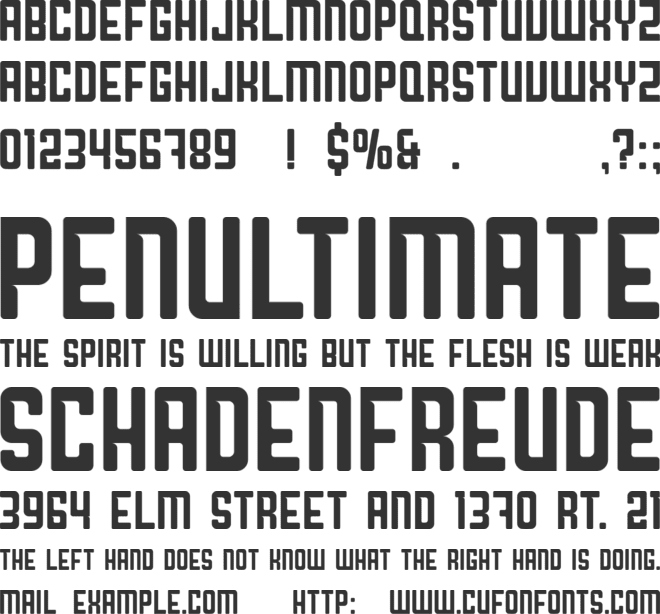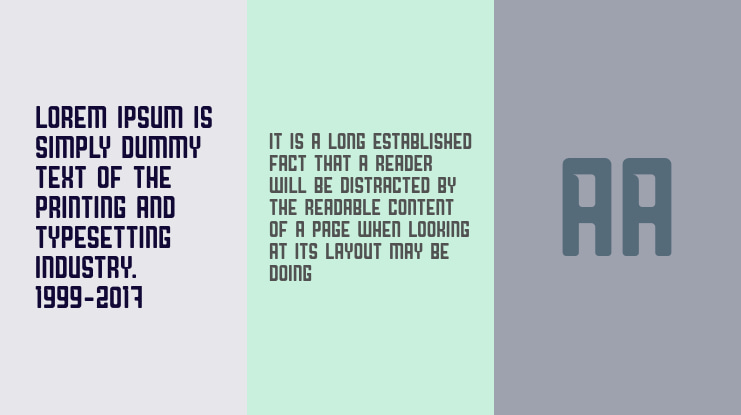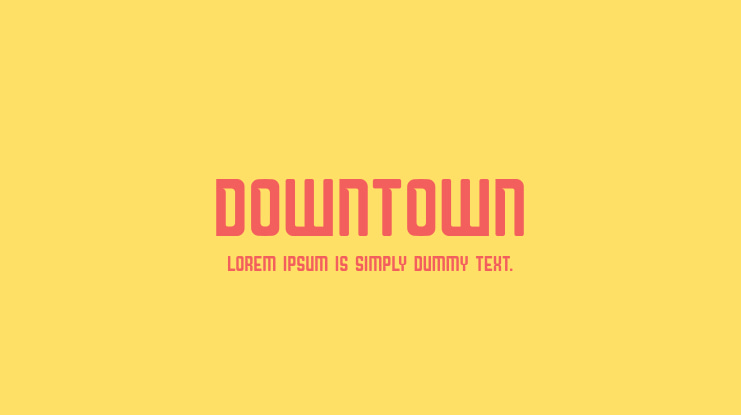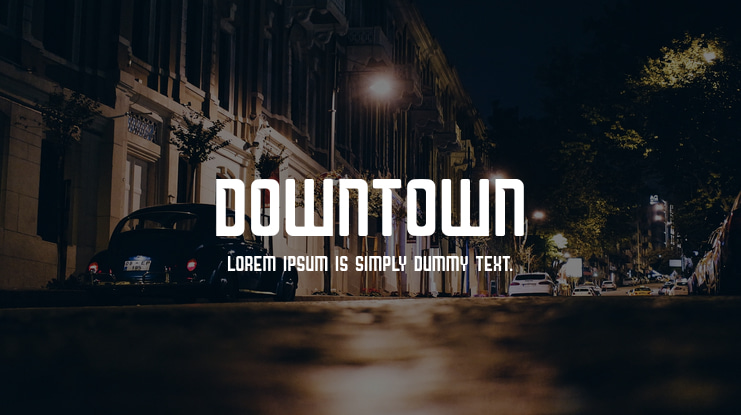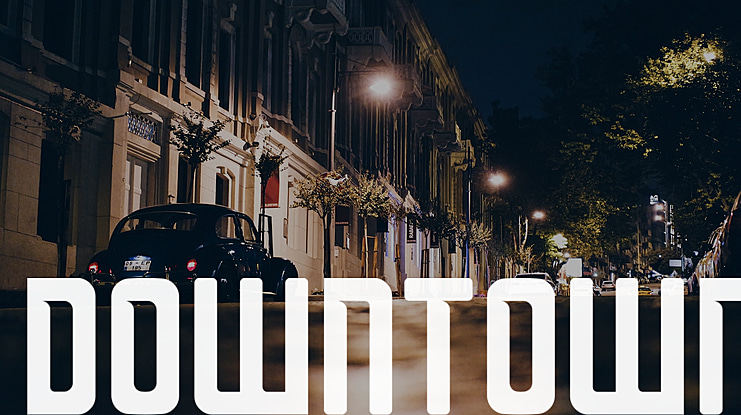
Downtown Font
Downtown font was created by Nelson Fraga and Roman Tunik. Latin version: Nelson Fraga. Cyrillic version: Roman Tunik.
The Downtown Font's a type inspired by the city life and everything that defines a city: it's colors and the streets and their sounds.